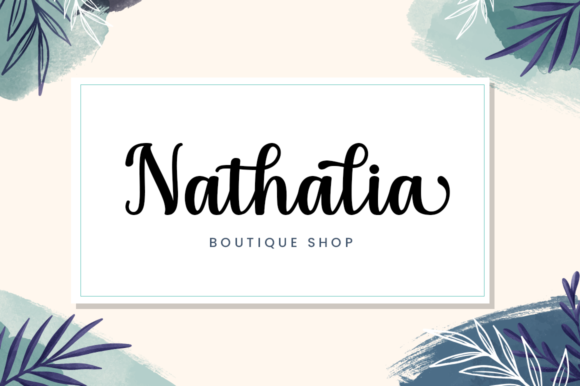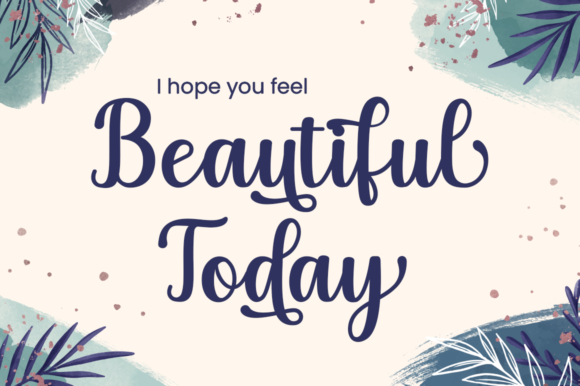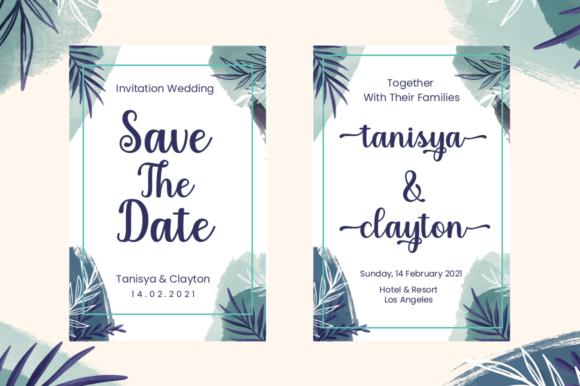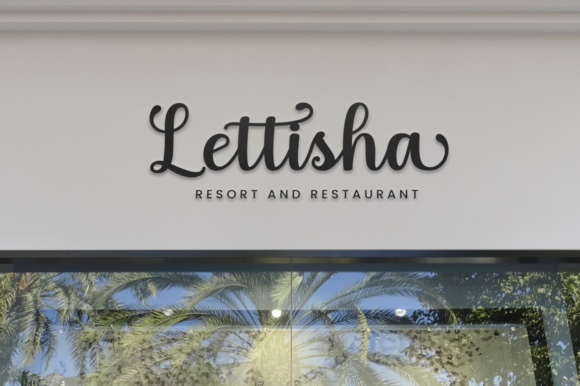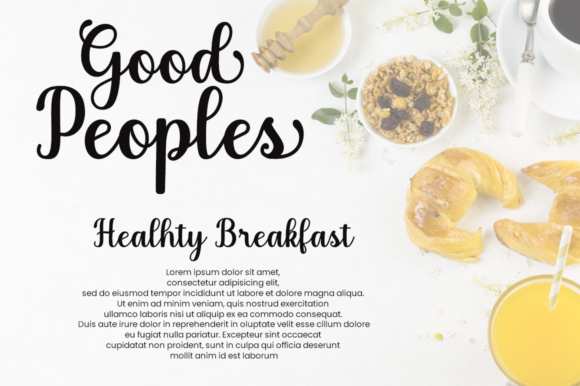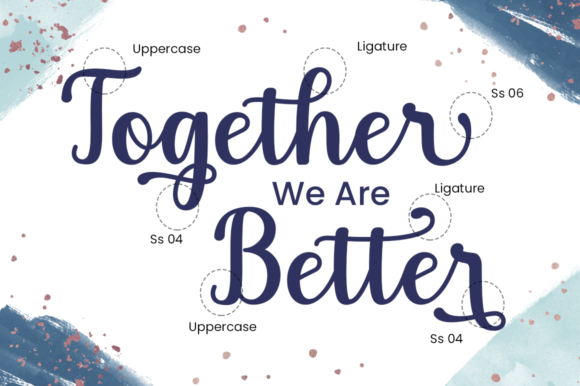
Introduction to Galistan Font
Enter the Galistan Font, a bold and classic handwritten font that’s sure to elevate your next creative project. With its high-quality design and transparent background, this font is perfect for a wide range of designs, from sticker and vinyl creations to more intricate illustrations.
- High-quality font designed for creative projects, ideal for digital and print use.
- Features a transparent background, allowing for seamless integration with any design element.
- Includes a comprehensive character set, supporting multiple languages and alphabets.
- Designed with a modern aesthetic, suitable for a wide range of creative applications, from branding to editorial content.
Honest Review: Galistan Font
I recently had the chance to work with the Galistan Font, and I’m excited to share my honest review with you. As a designer, I’m always on the lookout for high-quality design resources that can elevate my creative projects. The Galistan Font definitely delivers.
Here’s what works well: ✨ The font is incredibly versatile, with a range of styles that can be used for everything from headings to body text. The transparent background makes it easy to use with any design, and the high-quality glyphs ensure that your text looks crisp and clear. Plus, the free download option is a huge bonus – it’s always great to have access to a high-quality font without breaking the bank.
- High-quality glyphs for a crisp and clear text
- Transparent background for easy design integration
That being said, there are a few limitations to consider: ⚠️ The font is only available in a few weights, which may limit its use in certain design contexts. Additionally, the font may not be suitable for use in very small sizes, as the glyphs can become difficult to read.
Overall, I’m really impressed with the Galistan Font. It’s a great addition to any designer’s toolkit, and I would definitely recommend it for any creative project that requires a high-quality, versatile font.
Galistan Font is a versatile design resource suitable for various creative projects, including:
- Graphic designs
- Logos